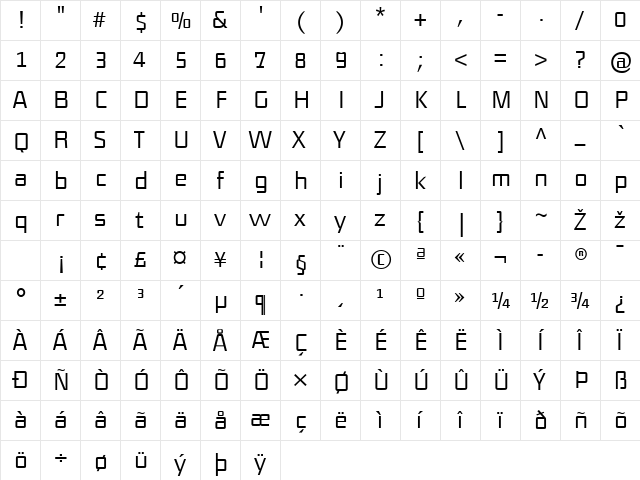
DistrictTF-Light Regular
| Foundry | FontShop International |
| Designer | Albert Boton |
Design Context for DistrictTF-Light Typeface
DistrictTF-Light takes a measured approach to typography — its balanced proportions and neutral character make it a reliable workhorse for both digital and print work. Its slender proportions lend an understated elegance to any composition.